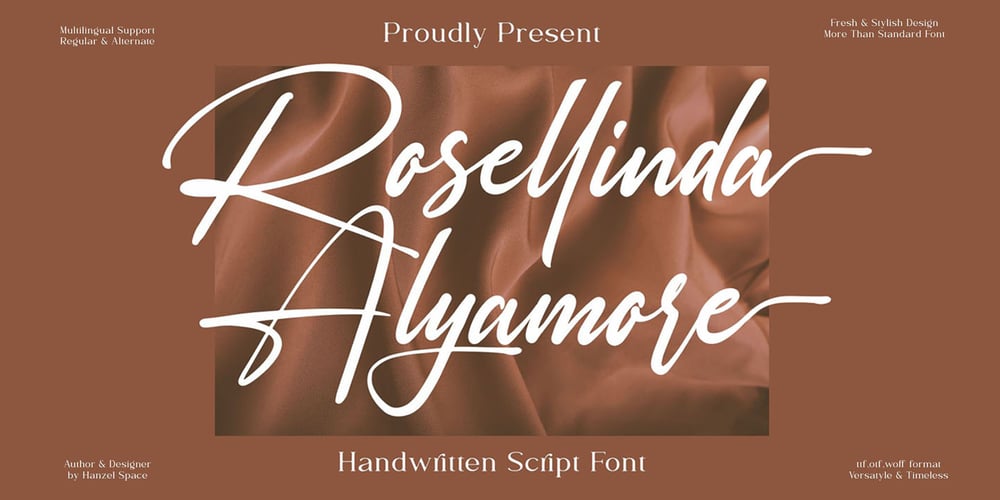
Rosellinda Alyamore
Rosellinda Alyamore font
Rosellinda Alyamore Font Family was designed by Hanief Farandi and published by Hanzel Space. Rosellinda Alyamore contains 1 styles and family package options. Rosellinda Alyamore font. i hope this font is perfect for creating signature logos and watermarks for photography studio or wedding invitation, Lable, Logo, Magazine best for initial or branding logo signature.I madefully with love and unique !!Rosellinda Alyamore a full set of beautifull hand letters, numerals, a large range of punctuation and ligatures. Giving realistic hand-lettered style. What do you get, darling?In order to use the beautiful swashes, you need a program that supports OpenType features such as Adobe Illustrator CS, Adobe Photoshop CC, Adobe Indesign and Corel Draw. but if your software doesn’t have the Glyphs panel, you can install additional swashes font filesHappy Design 🙂Thank You!Hanzel Space